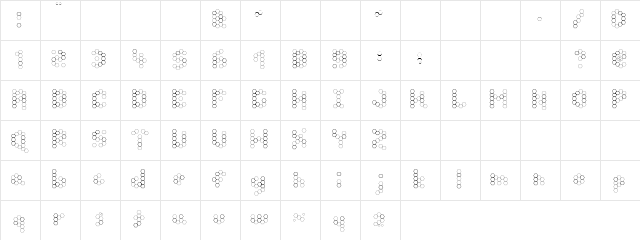
U Honeycombed Regular
Design Context for U Honeycombed
U Honeycombed is a composed and adaptable typeface that performs quietly and consistently across a wide range of design contexts.